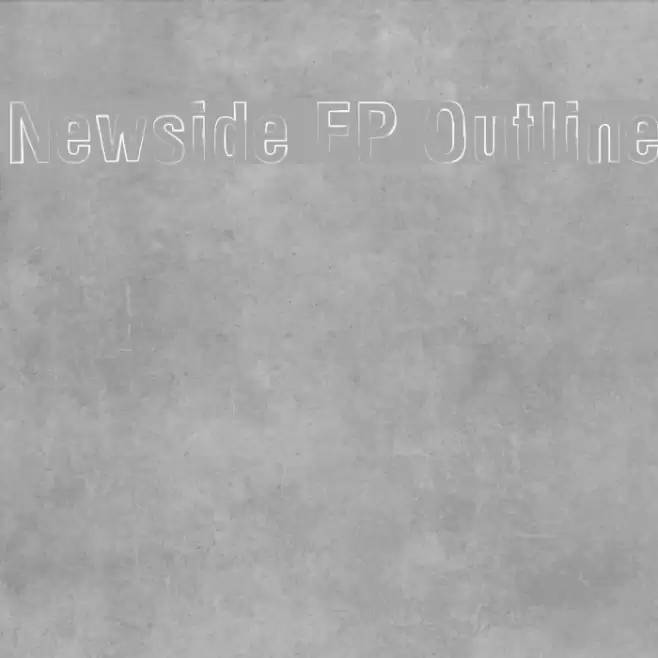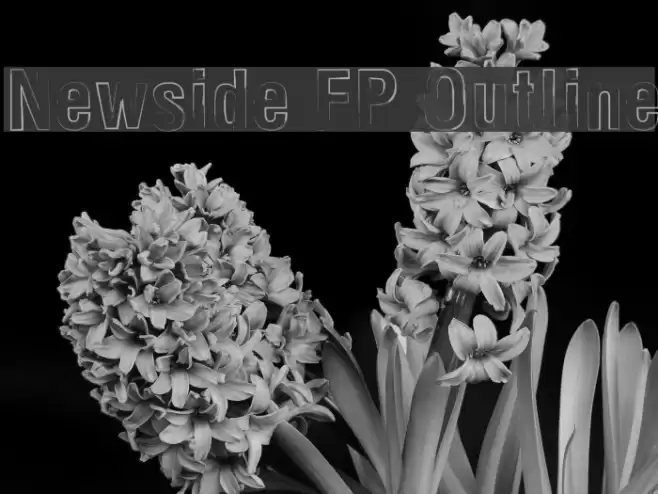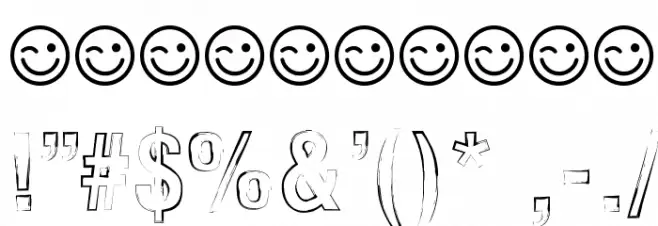
Newside FP Outline Font
Newside FP Outline Description
This font features a modern and clean outline style, characterized by its clear and bold lines that form the outer edges of each character. The uppercase and lowercase letters maintain a consistent geometric structure, providing a sense of uniformity and balance. The numerals and special characters follow the same design principles, ensuring a cohesive look across all glyphs. The font's outline nature gives it a unique aesthetic, making it stand out while remaining legible. Its design is versatile, suitable for various creative applications where a contemporary and stylish appearance is desired.
A modern, clean outline font with bold geometric characters from Uncategorized fonts.